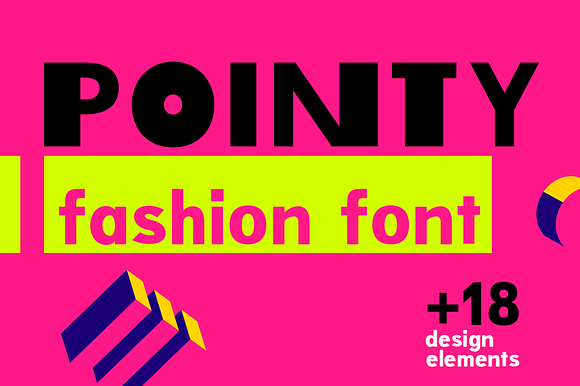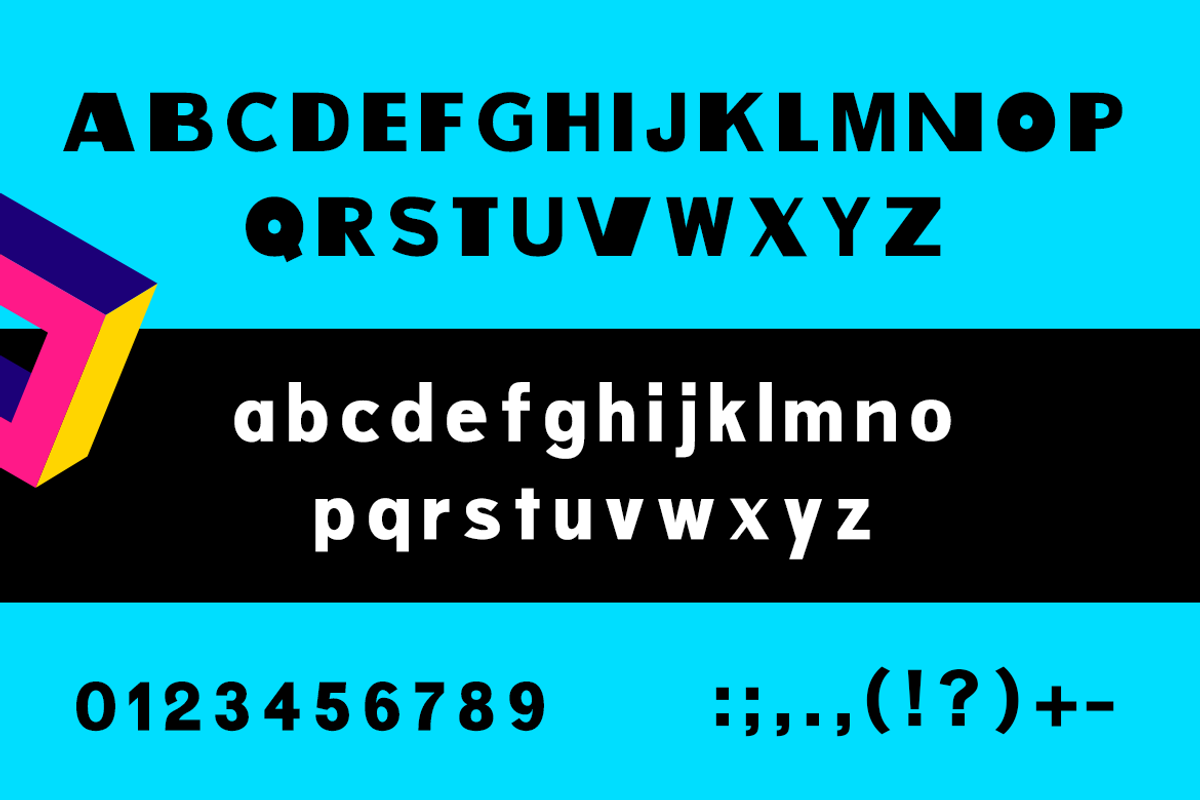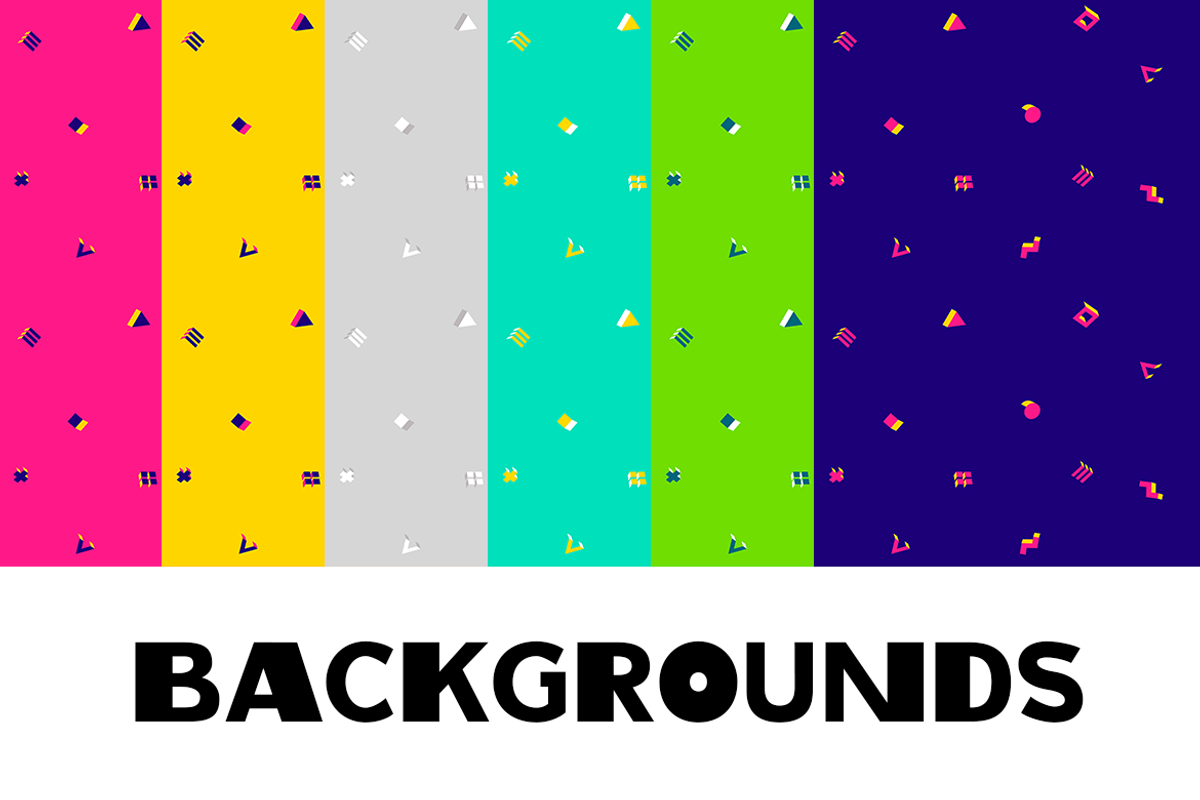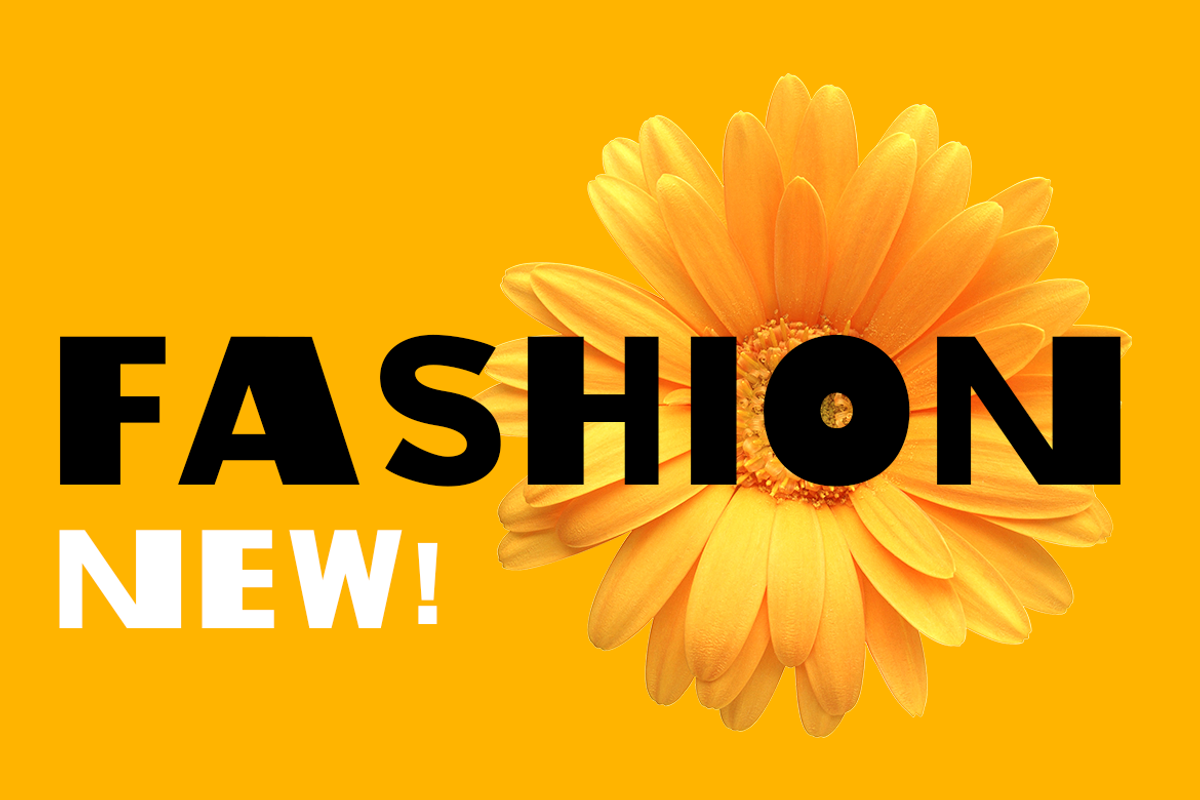
Pointy| fashion bold font
Pointy is a fashion sans serif font designed with different thickness letters. The font is elegant and at the same time bright and conspicuous. Bold and joyful font, it works great to make short titles.
numbers & punctuation
Pointy| fashion bold font by wowomnom fits naturally into Branding, posters, packaging, typography.